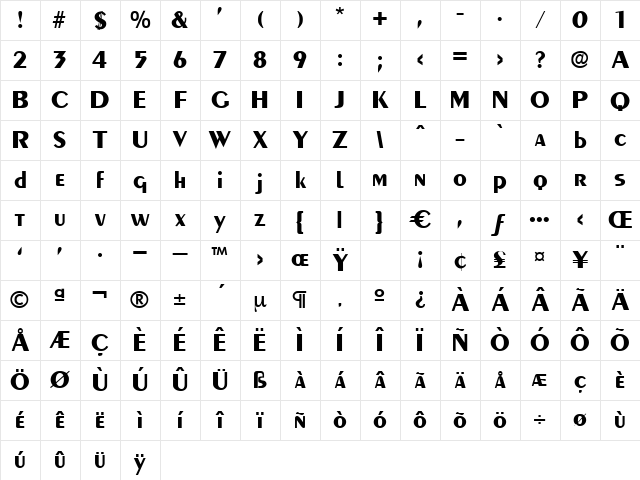
Complete Aquavit Regular glyph index. Displaying only characters natively supported by Aquavit Regular font.
Aquavit is a composed and adaptable typeface that performs quietly and consistently across a wide range of design contexts.